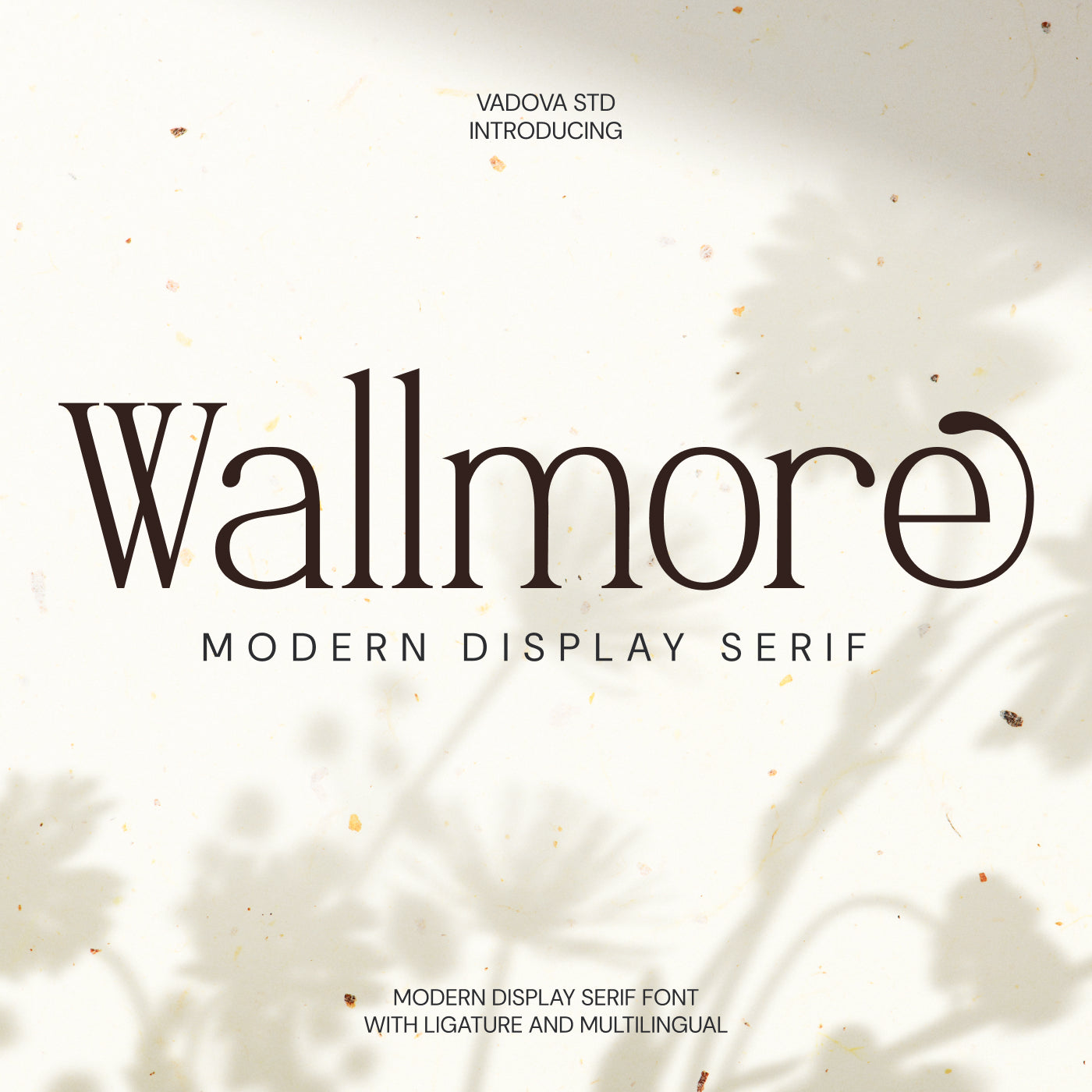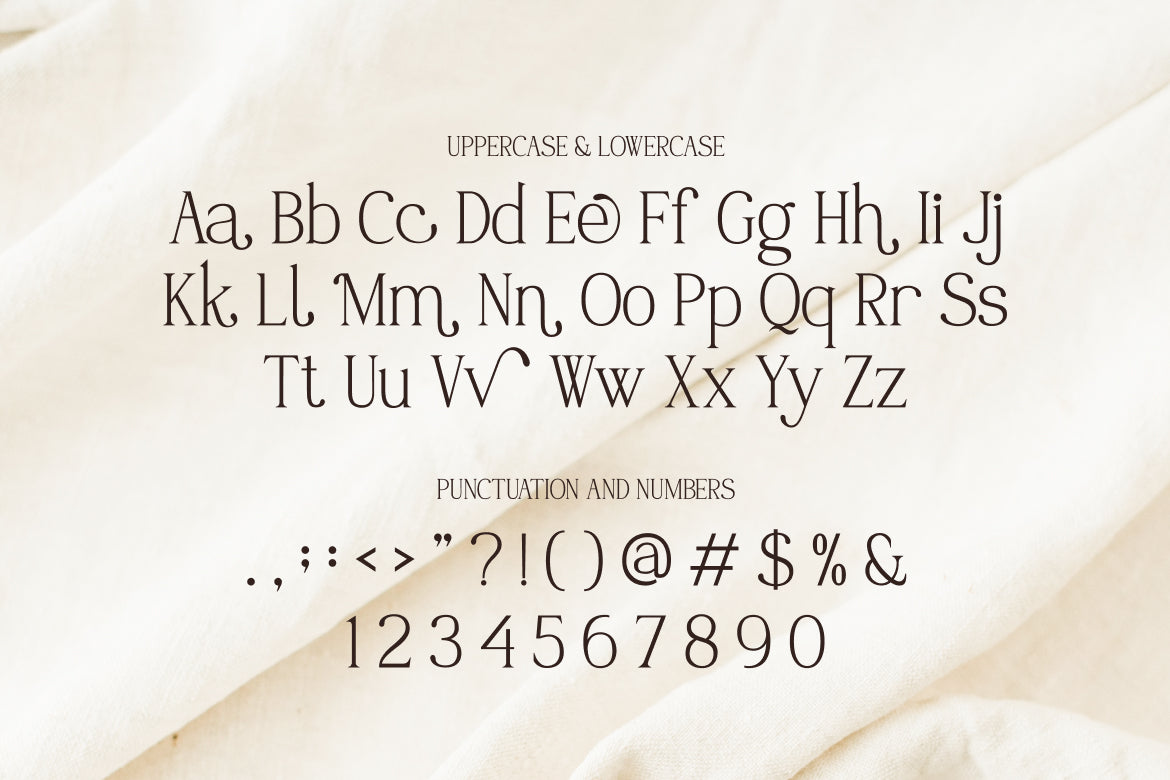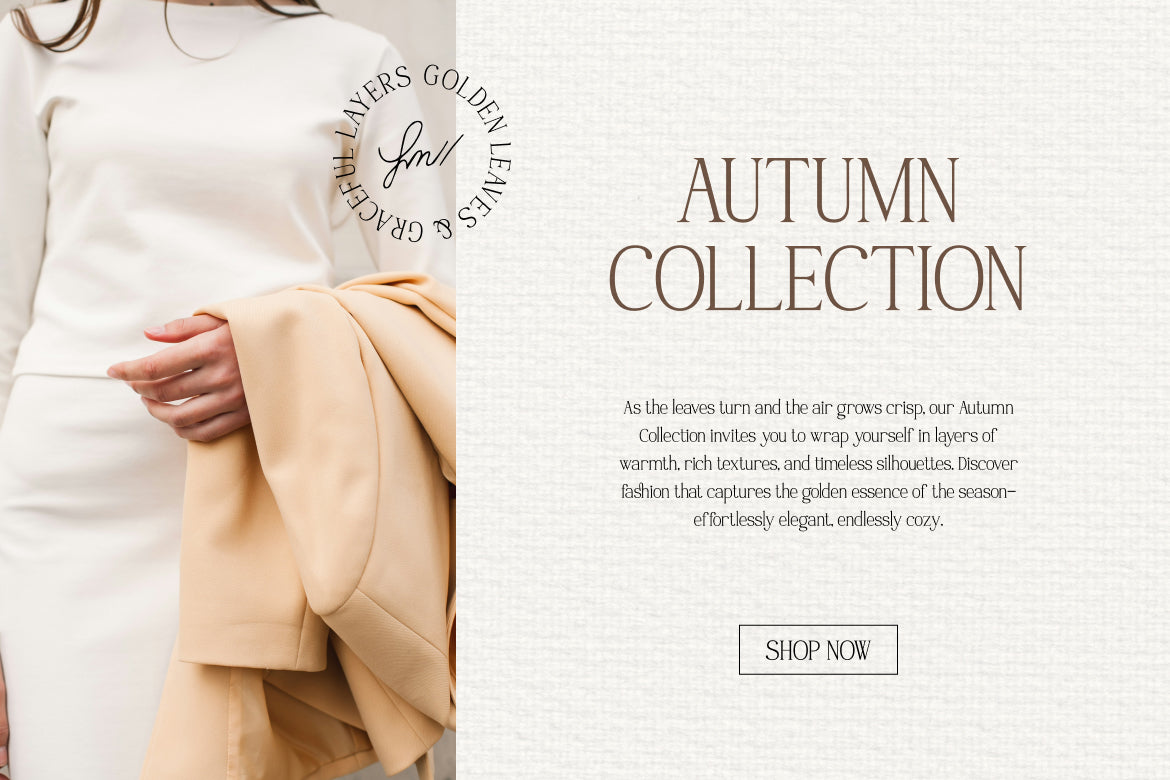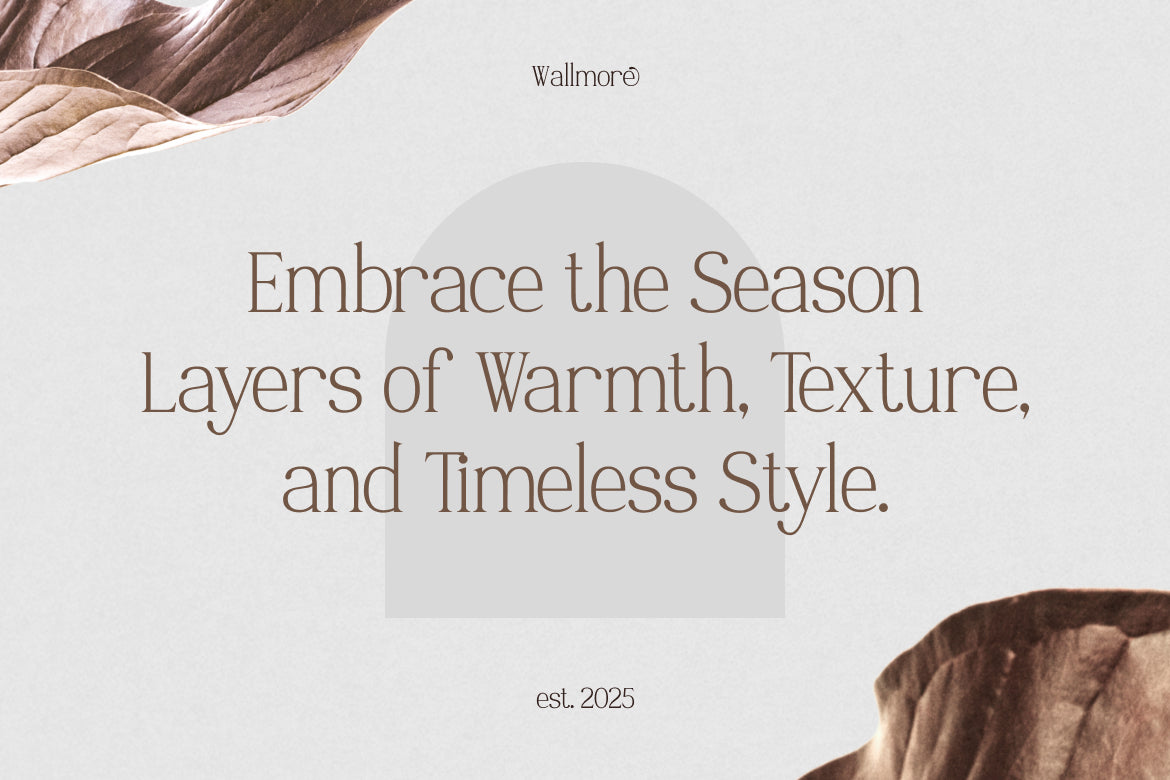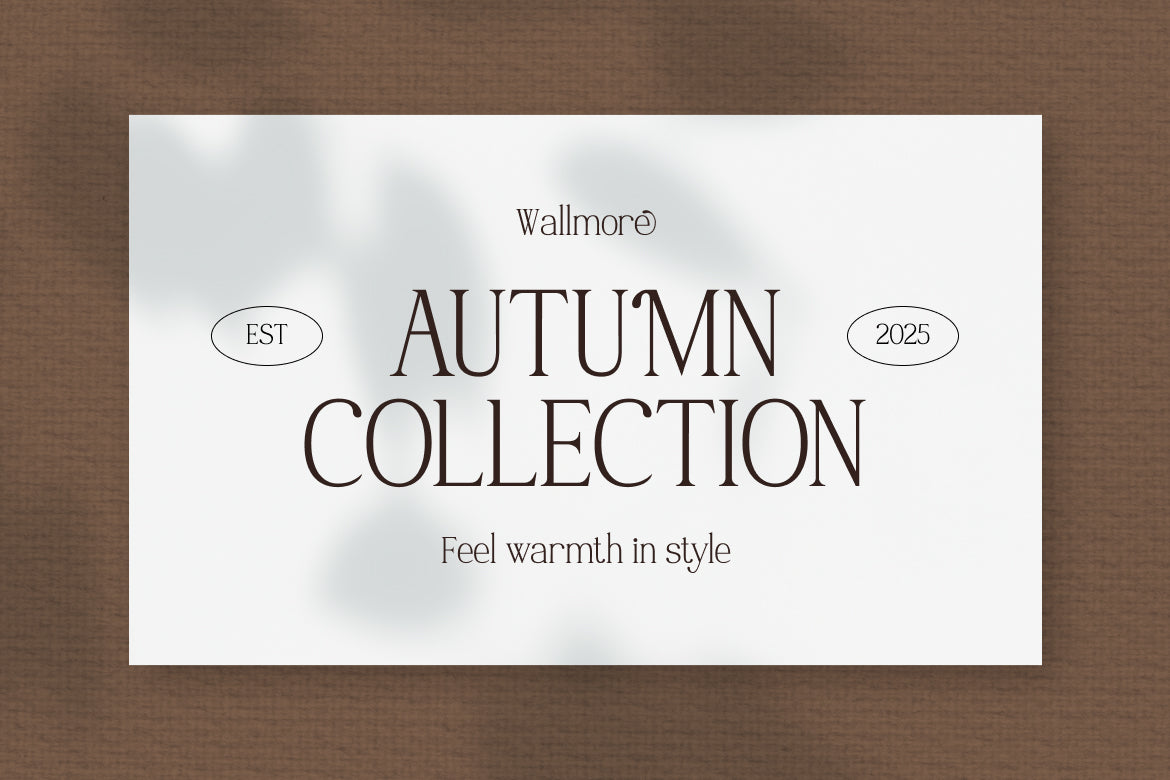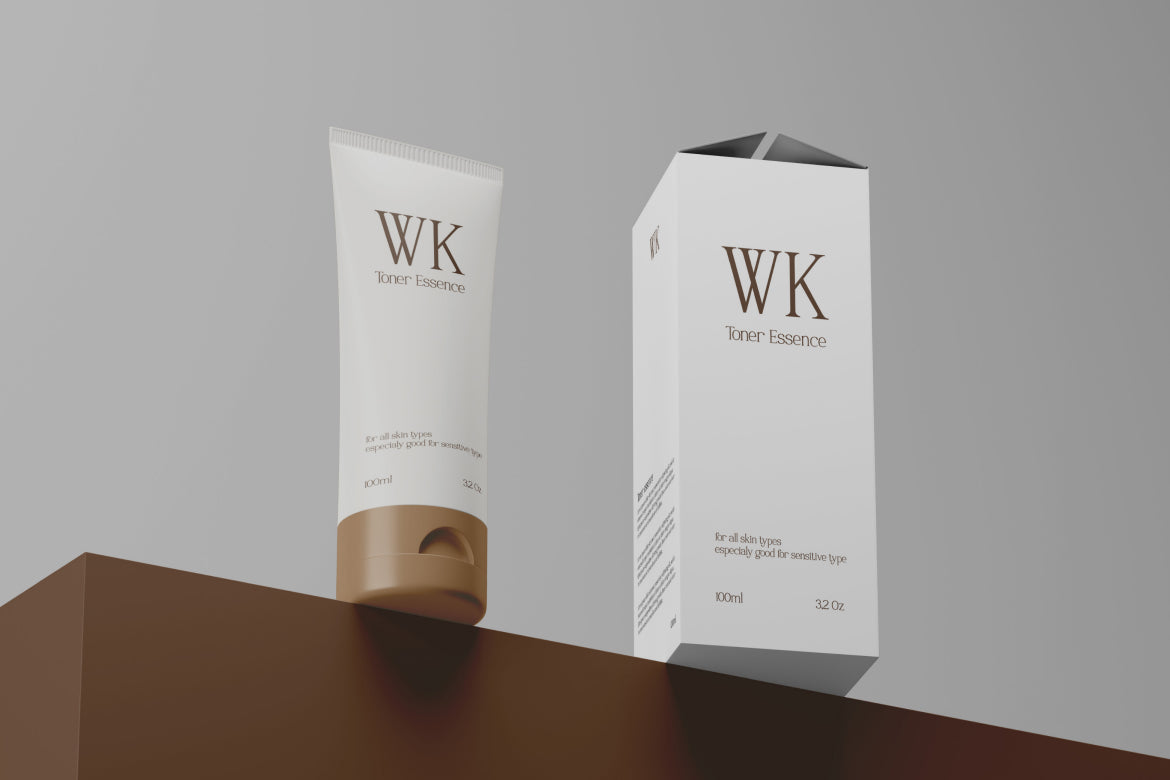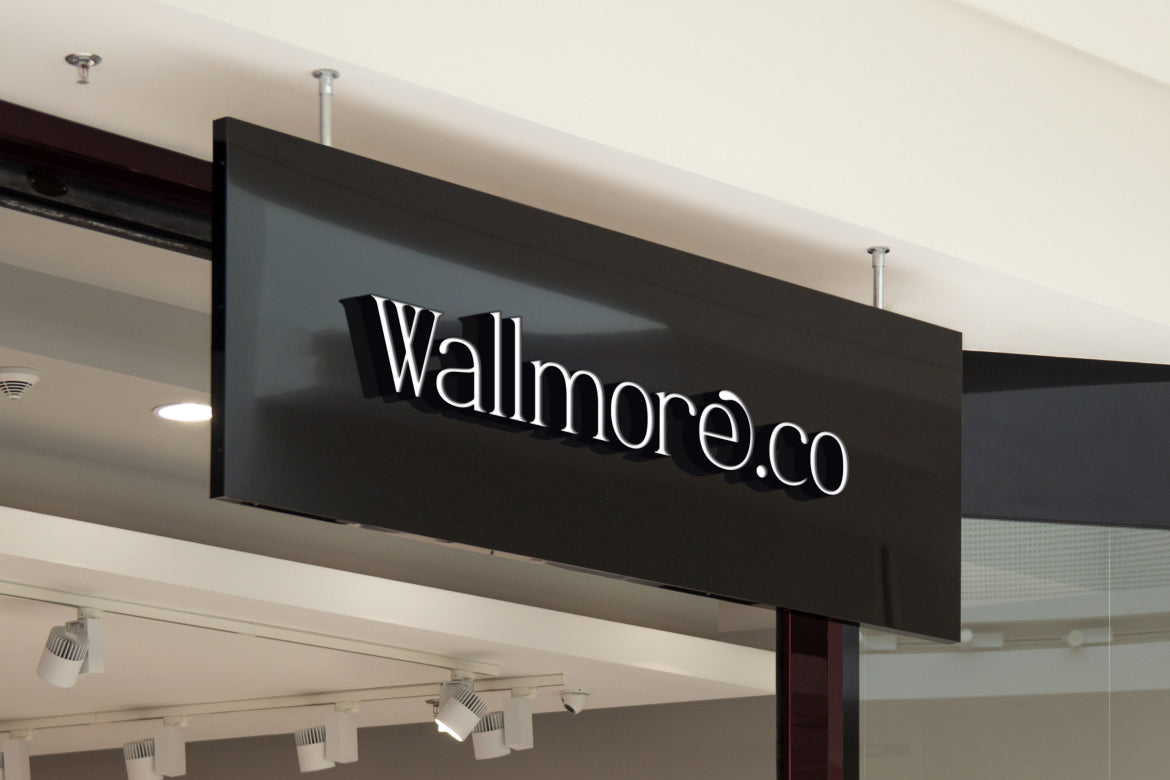
Wallmore Modern Display Serif Font
Wallmore is a modern display serif font that blends timeless sophistication with contemporary flair. Featuring refined curves, unique ligatures, and multilingual support, it’s designed to elevate branding, fashion editorials, advertising campaigns, and seasonal collections. Perfect for elegant headlines and high-end design projects, Wallmore brings a polished, professional feel to any visual identity with its stylish, clean serif structure.
Wallmore is a modern display serif font featuring refined curves, unique ligatures, and multilingual support. It includes uppercase and lowercase characters, numerals, and punctuation, available in TTF, OTF, and WOFF formats.